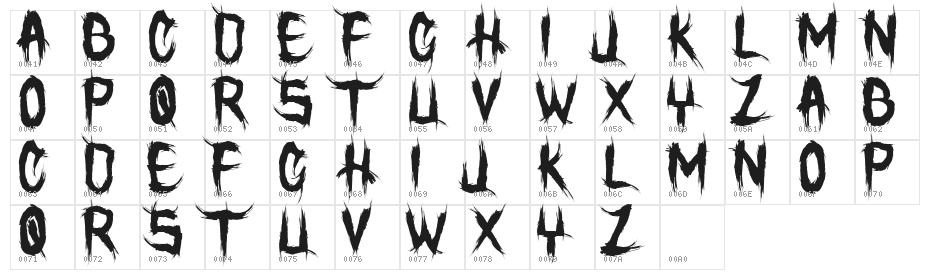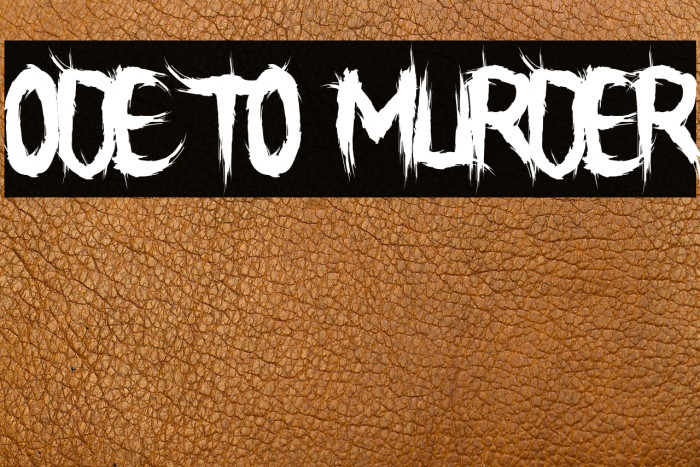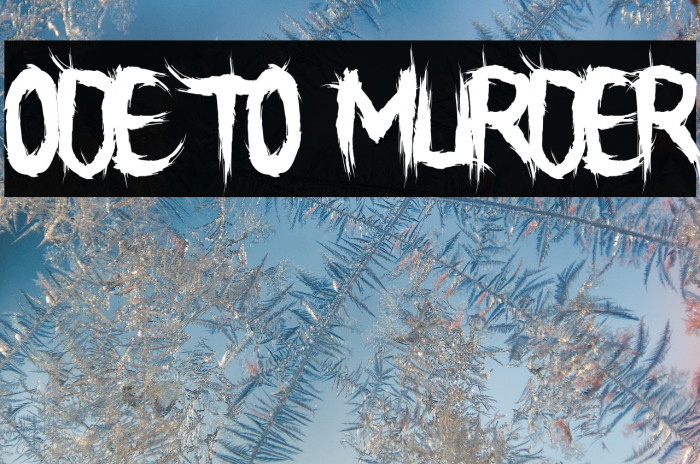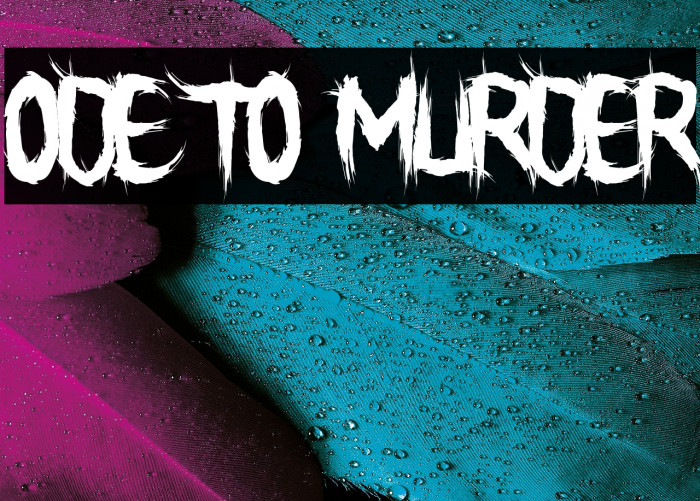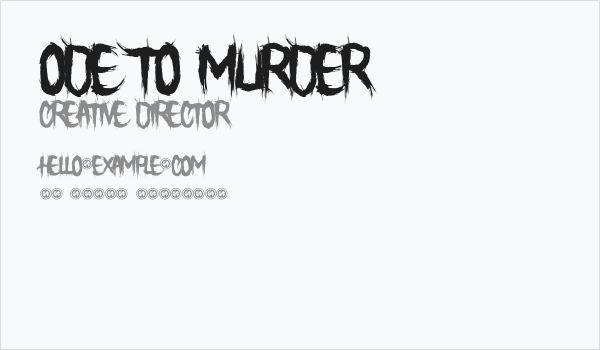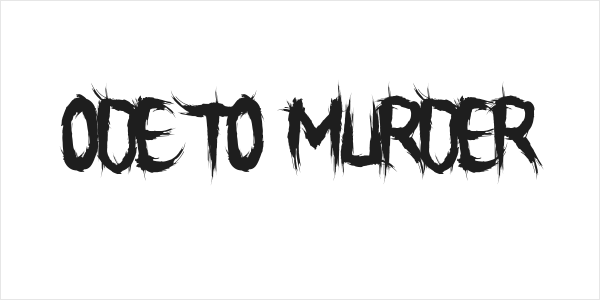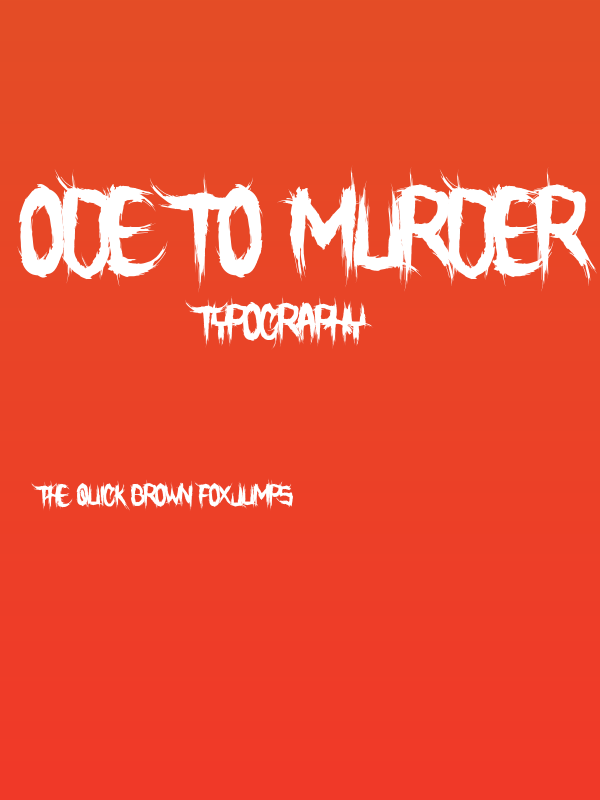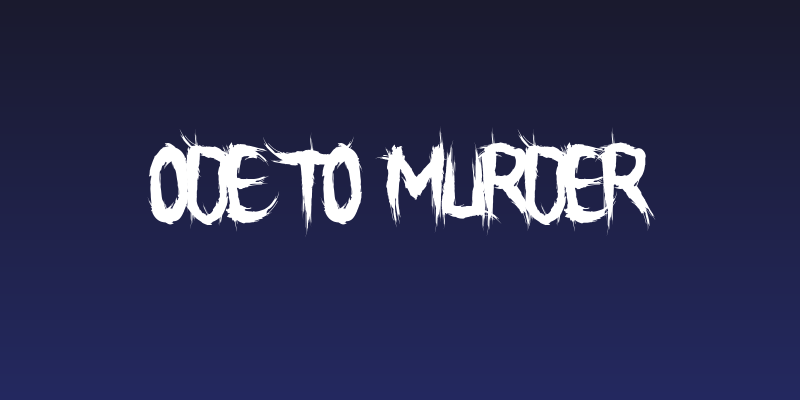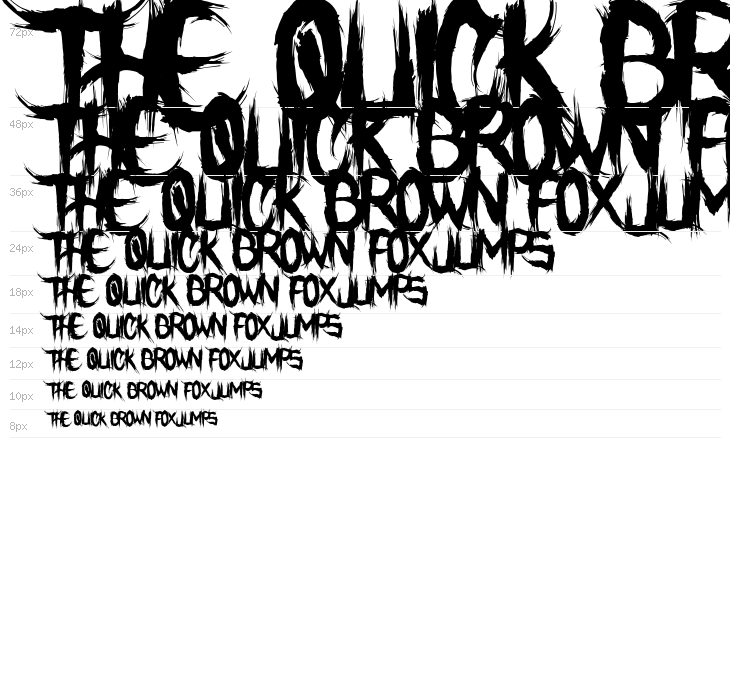
Ode To Murder Font
Ode To Murder Description
This font features a bold and aggressive style, with jagged, brush-like strokes that give it a raw and intense appearance. The characters are heavily stylized, with uneven edges and a sense of movement, as if they were painted with a rough brush. This creates a dynamic and chaotic feel, making it ideal for projects that require a strong visual impact. The uppercase and lowercase letters maintain a consistent style, with exaggerated angles and sharp points. The numbers and special characters follow the same design principles, ensuring a cohesive look across all elements.
| Proposed Projects | Ideal for horror-themed posters, album covers, or any project needing a dramatic and edgy aesthetic. |